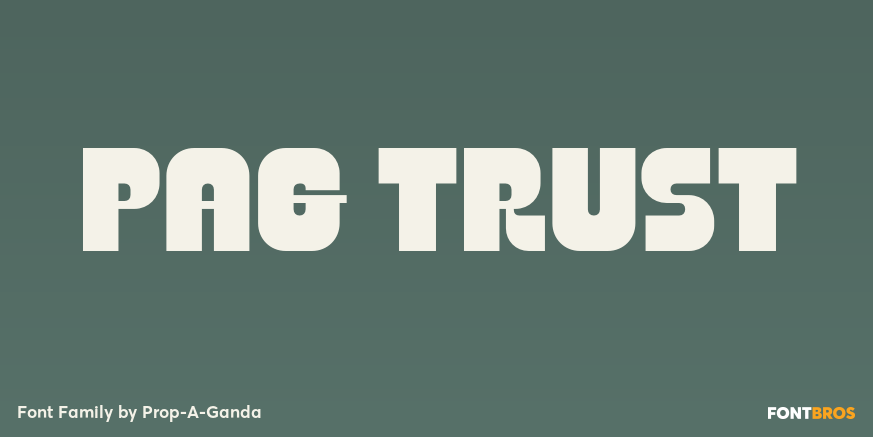
HomeFont BrosArt Deco (1910-1935)PAG Trust Art Deco (1910-1935)Sans Serif PAG Trust FacebookXPinterestWhatsApp 1 of 1 About PAG Trust Inspired by and based on retro propaganda posters, movie posters, shopfront lettering & advertisements in the early 20th century. This is perfect font for your retrostyle project.  DOWNLOAD NOW People also explored Growself Monogram Font Texas Orange Can Cooler Mockup California Font Bestie Font BitBold Font Gradation Font Little Ghosts Font Fleurette Font Adhittama Font 332 0 TagsPAG Trust Font Previous articleViceroyNext articleAthletico LEAVE A REPLY Cancel reply Comment: Please enter your comment! Name:* Please enter your name here Email:* You have entered an incorrect email address! Please enter your email address here Website: Save my name, email, and website in this browser for the next time I comment. Personal Use Free Anders Personal Use Free Read more about this font Sea Gardens Personal Use Free Read more about this font Cintya Personal Use Free Read more about this font Cinderella Personal Use Free Read more about this font BLOG Using Fonts in Digital Marketing: Tips to Strengthen Your Brand Identity In the realm of digital marketing, every visual element plays a crucial role in shaping a brand's identity, and fonts are no exception. The... Best Fonts for T-Shirt Design – Top 2025 Picks The 10 Best Handwriting Fonts to Add Personality to Your Designs Elegant Wedding Invitation Fonts – Handwritten & Script Fonts